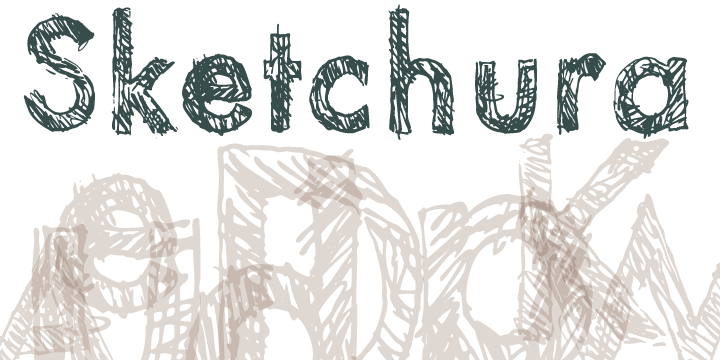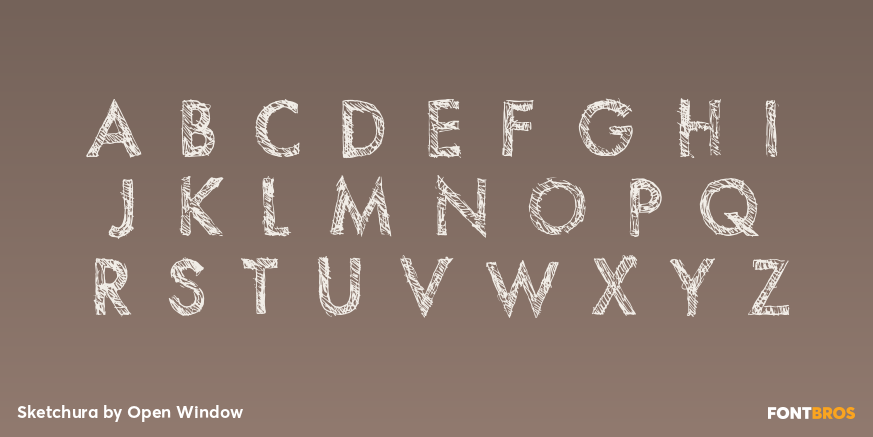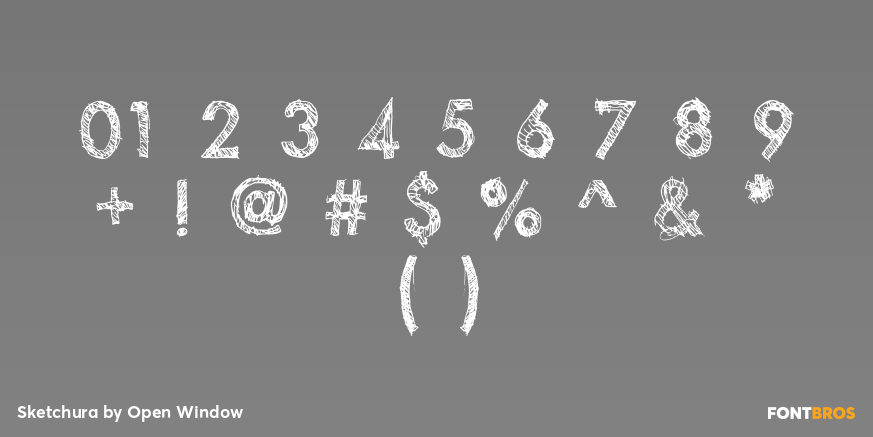
Sketchura
Font Family by Open Window
Sketchura offers a gritty twist on a classic font style -Futura- It was completely hand sketched which makes the font an organic centerpiece to any of your grungy design applications.